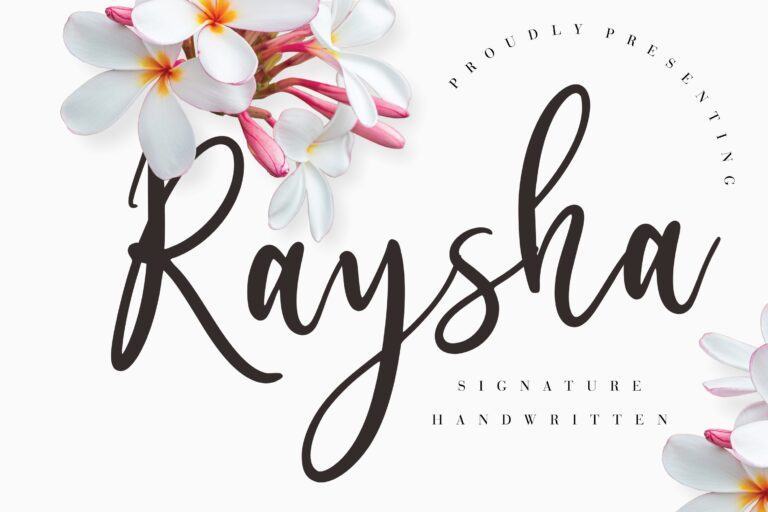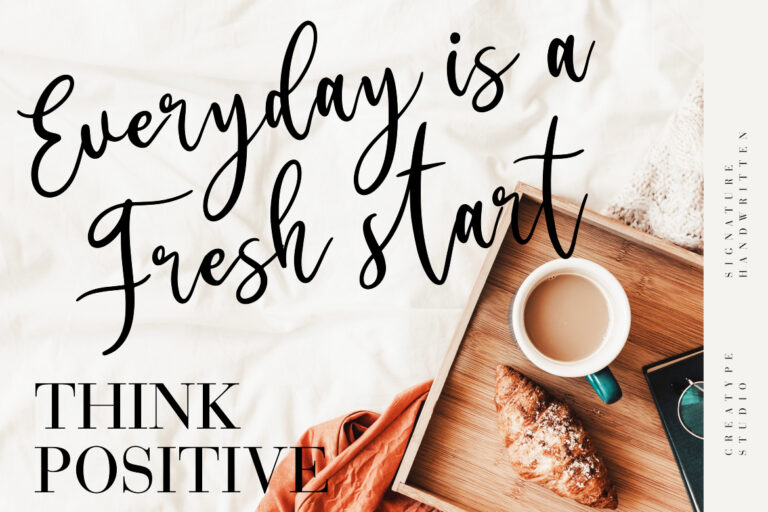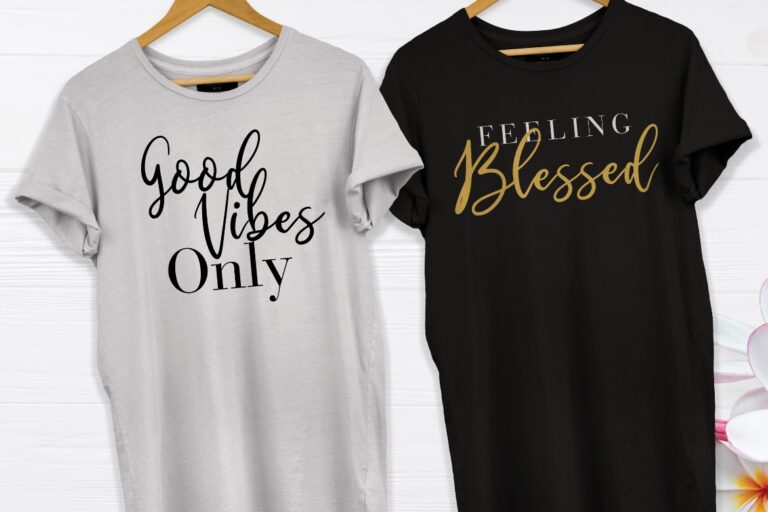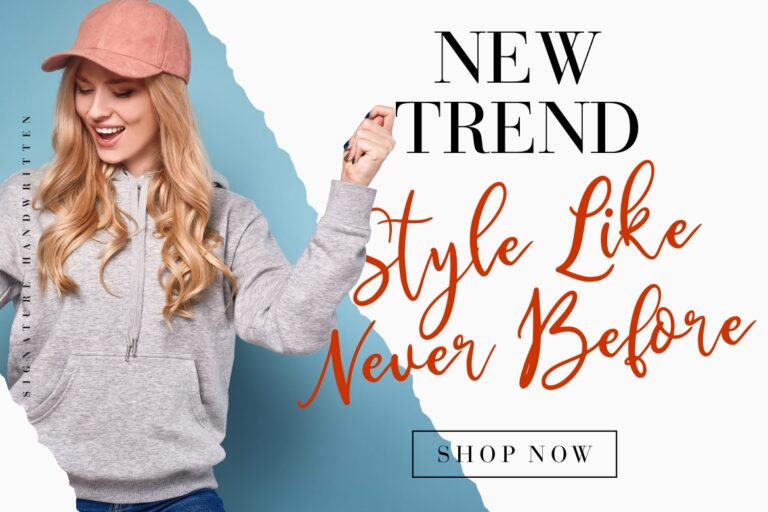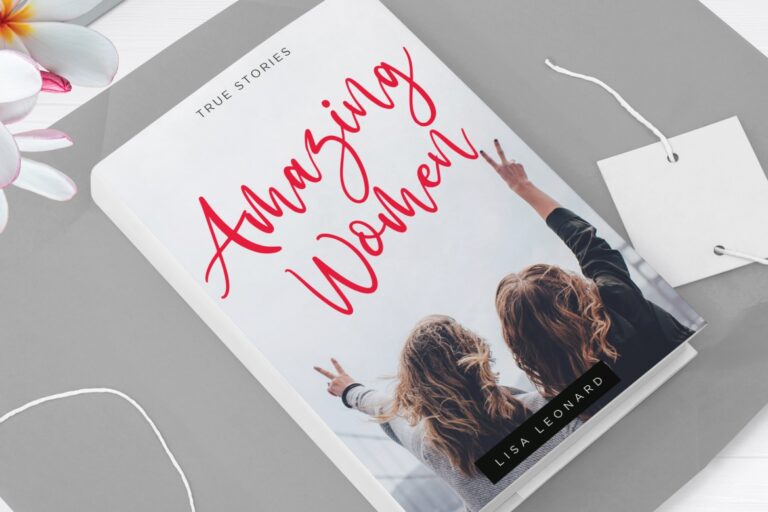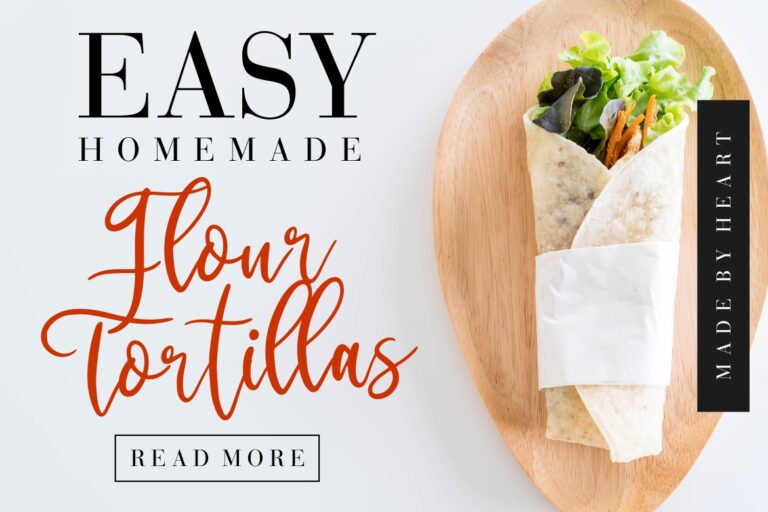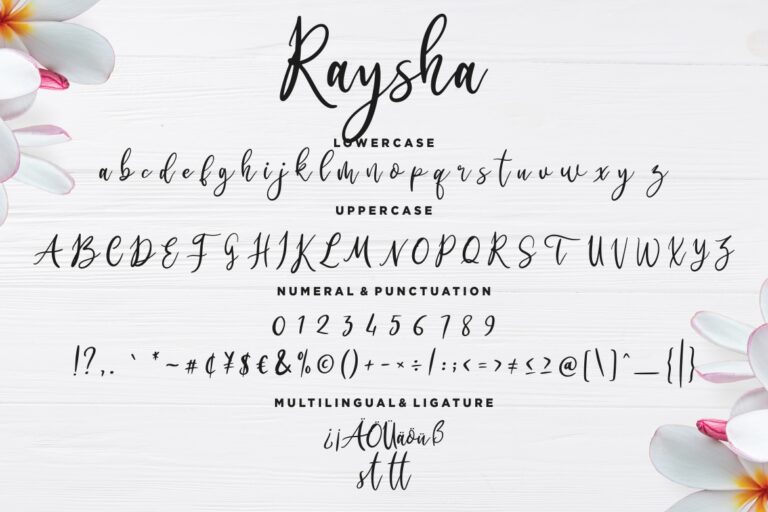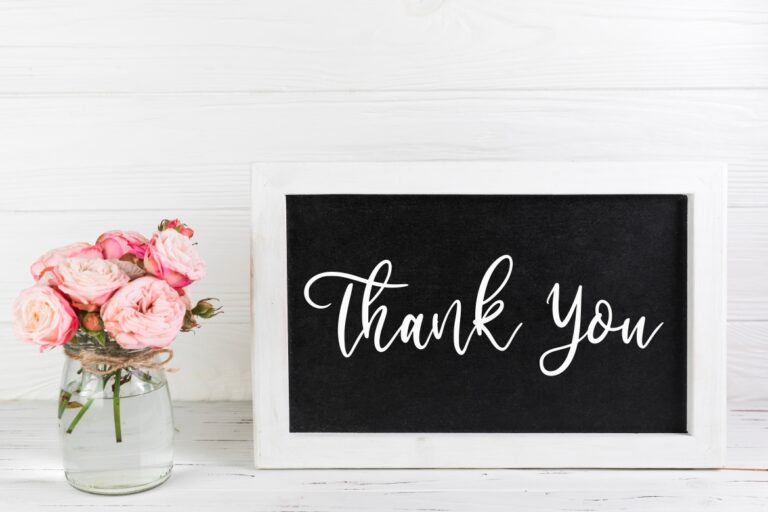
Raysha Signature Handwritten
Raysha Signature is signature handwritten font with natural movement sketch.
Raysha Signature is perfect for branding projects, logo, wedding designs, social media posts, advertisements, product packaging, product designs, label, photography, watermark, invitation, stationery and any projects that need handwriting taste.
- Fonts include multilingual support for; ä ö ü Ä Ö Ü ß ¿ ¡